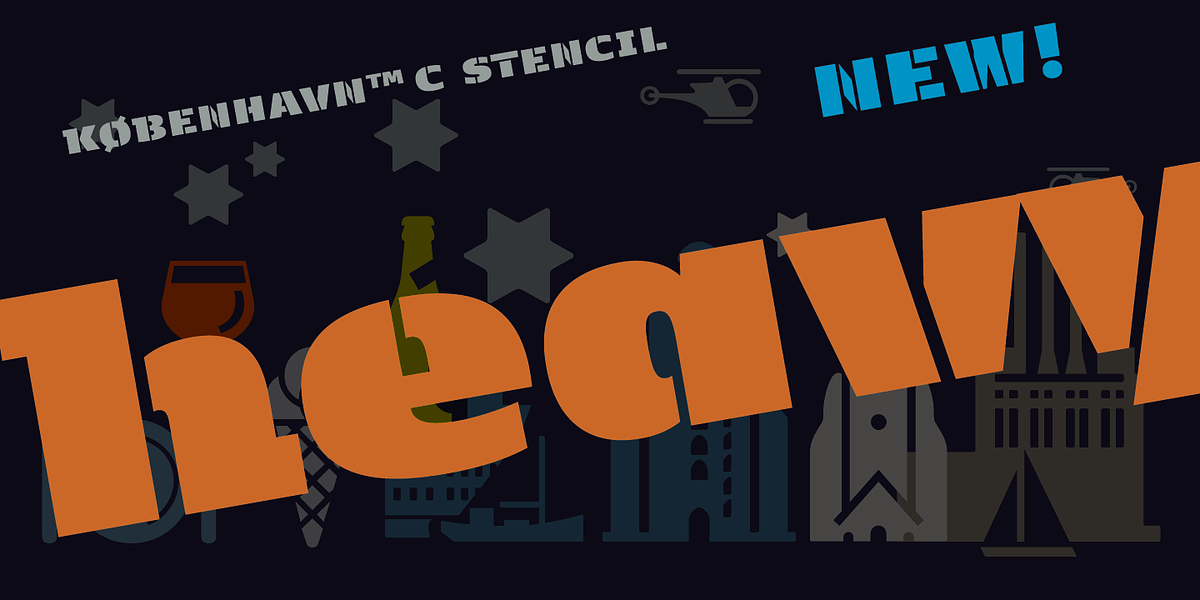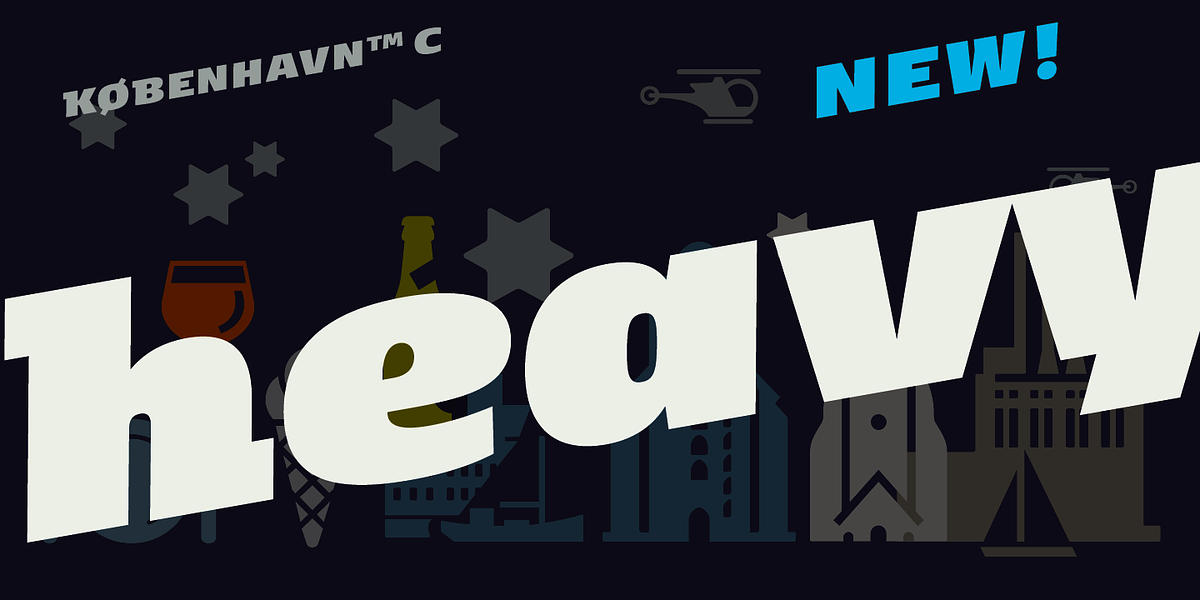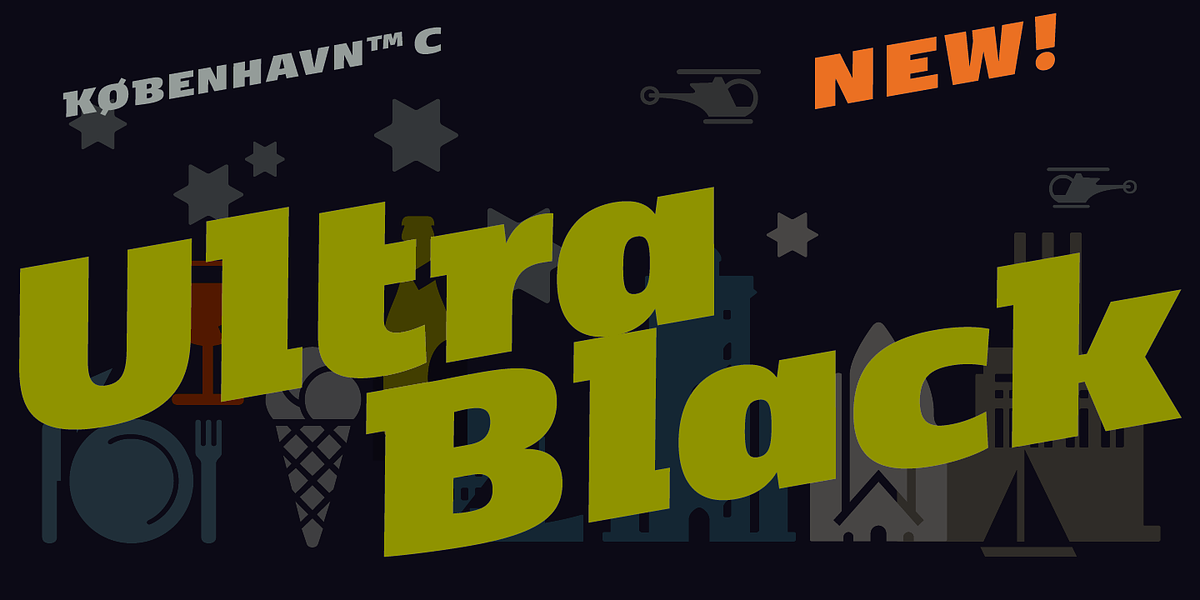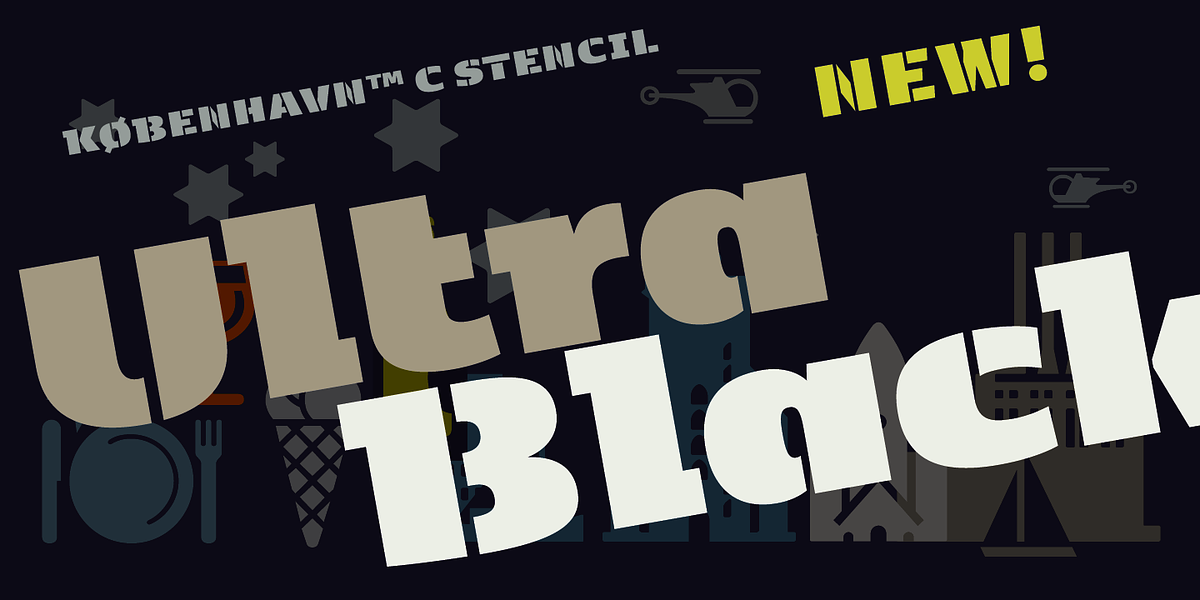
Designed by Morten Rostgaard Olsen Owner of Fontpartners 1 sales
FP København C
FP København C is a condensed version of the FP København font. It's a humanist sans serif with a stencil style, making it ideal for modern branding and headlines.